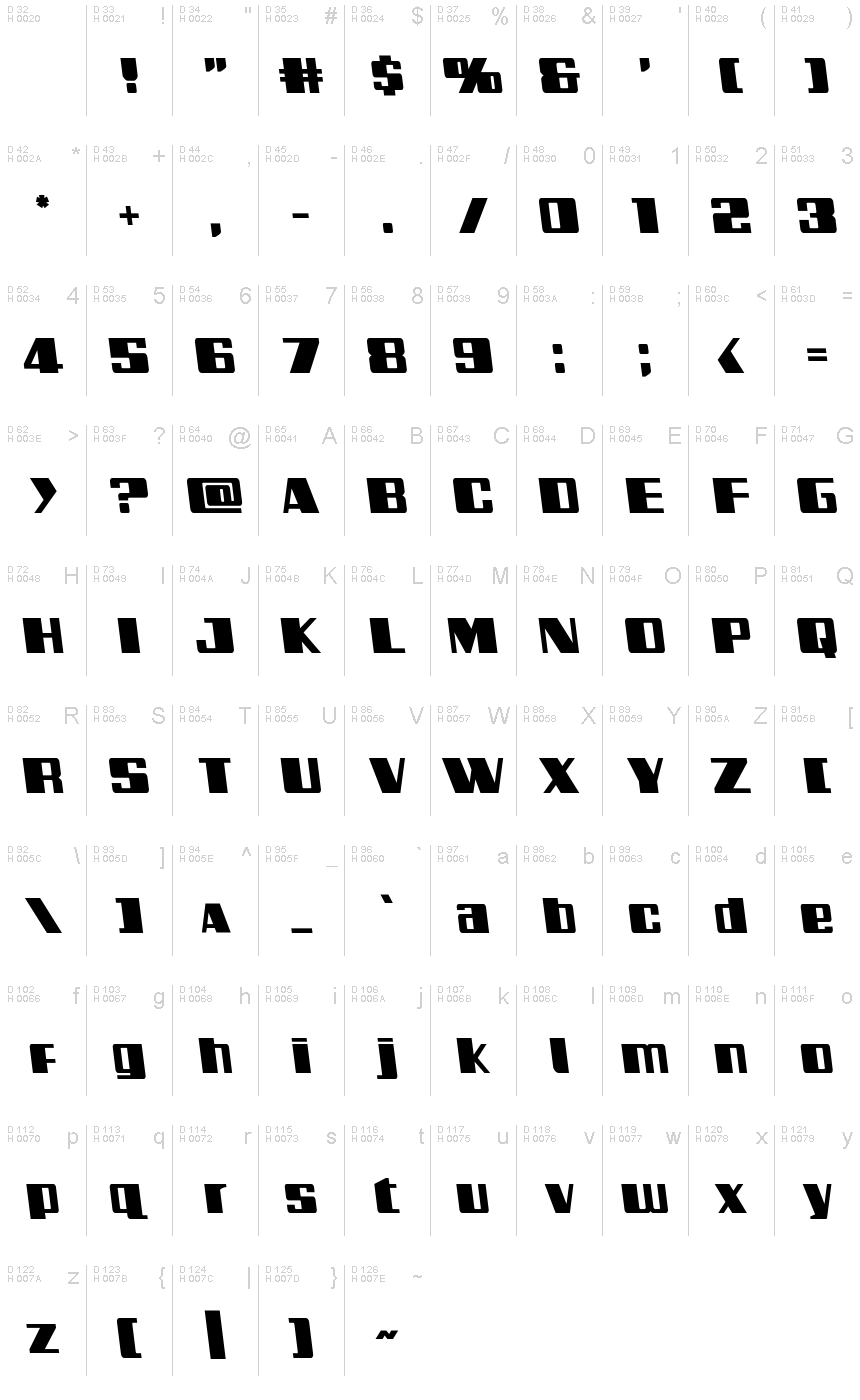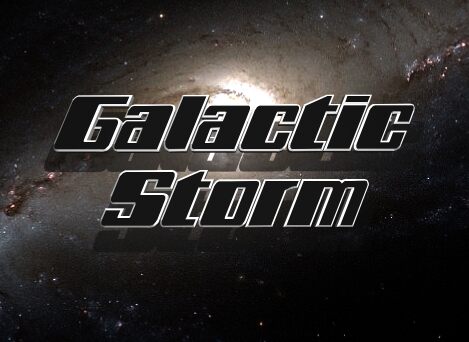
Galactic Storm Semi-Leftalic
Galactic Storm Semi-Leftalic is the perfect display font for futuristic projects. Designed by Iconian Fonts, this extra-bold and expanded typeface exudes a strong presence and commands attention. Its semi-leftalic style adds an extra touch of uniqueness to any design, making it suitable for bold branding, cutting-edge technology websites, or even science fiction book covers. With its sleek and modern appearance, Galactic Storm Semi-Leftalic is sure to leave a lasting impression on viewers. So why not harness the power of the future with this stunning font?